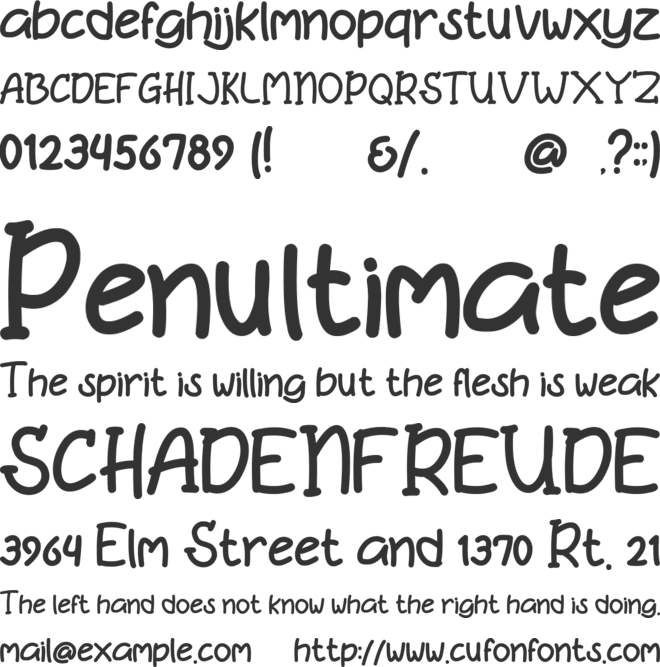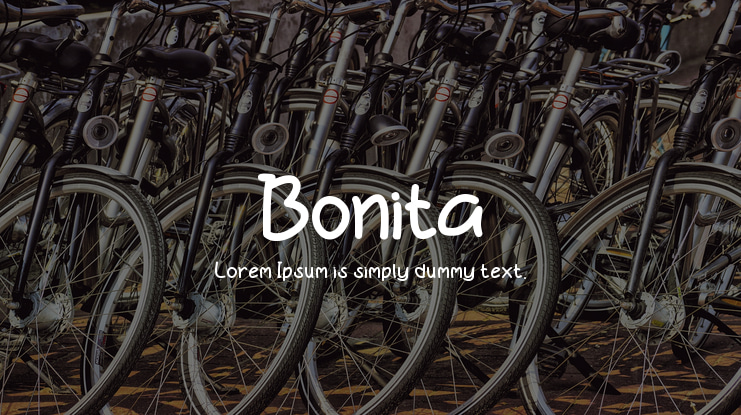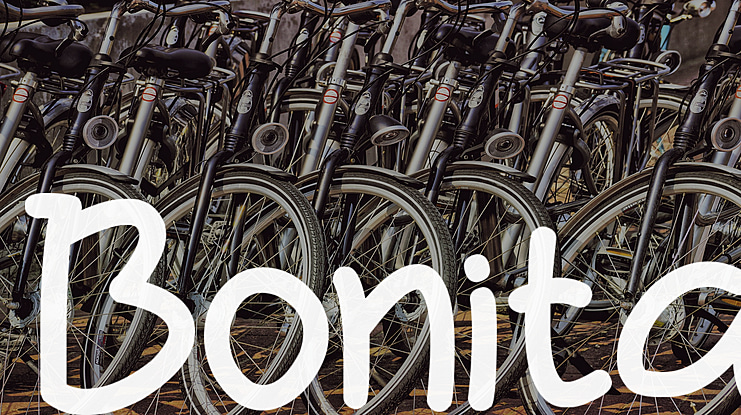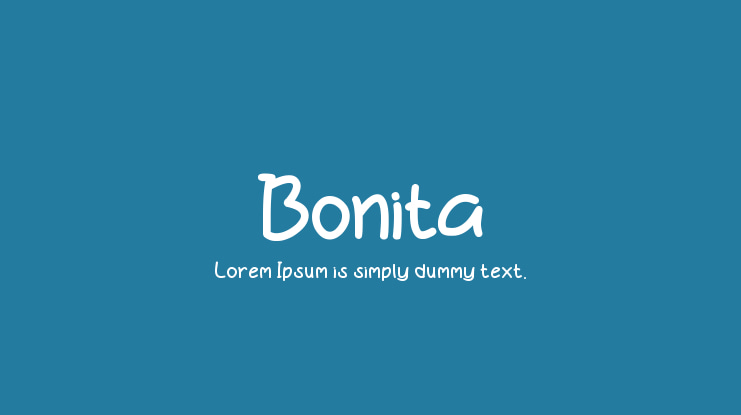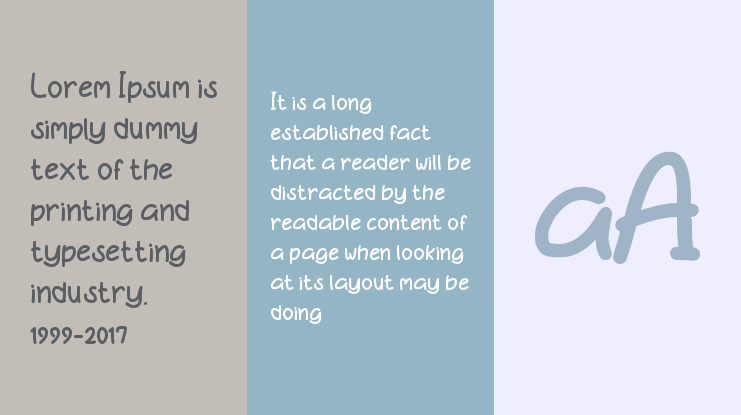
Bonita Font
The Bonita is a simple, yet cute font. This mono-line serif font shows simplicity, and has happy and fun vibe which can be used for quotations, logos, titles, advertising, business cards, signs, greeting cards, flyers, magazines, kids t-shirts, and much more!